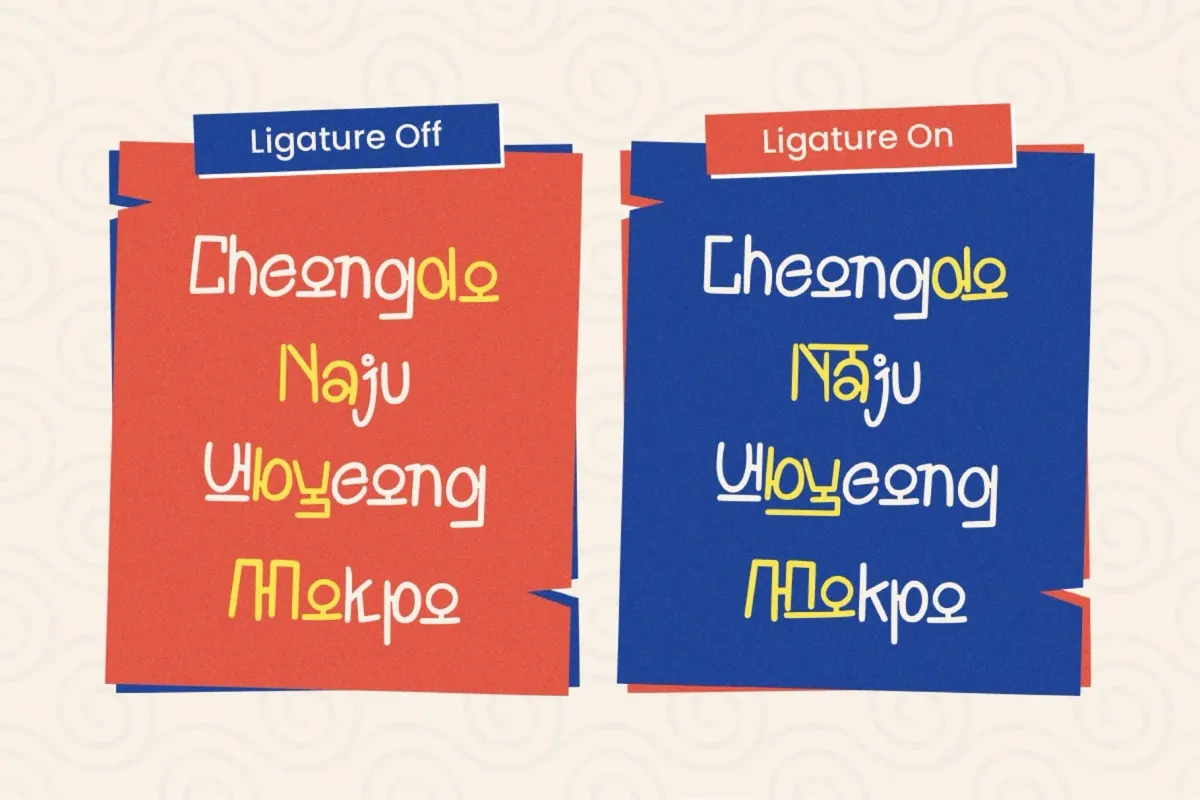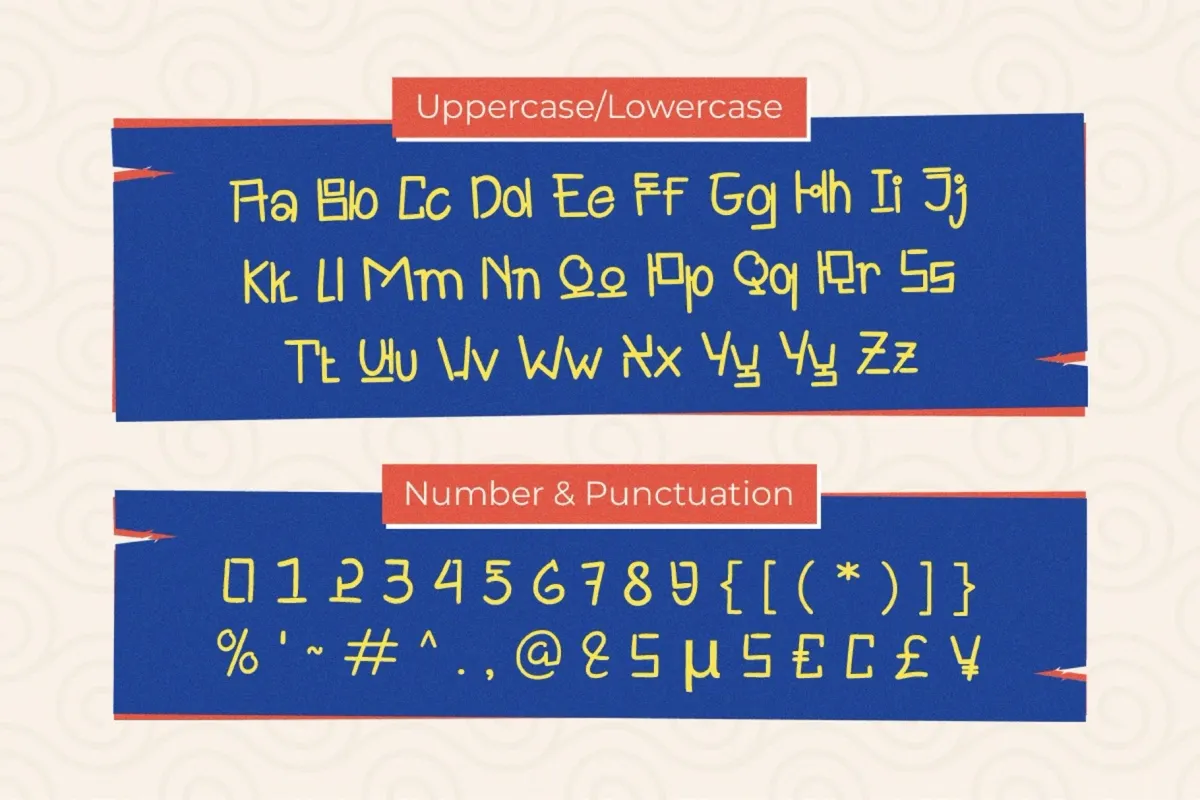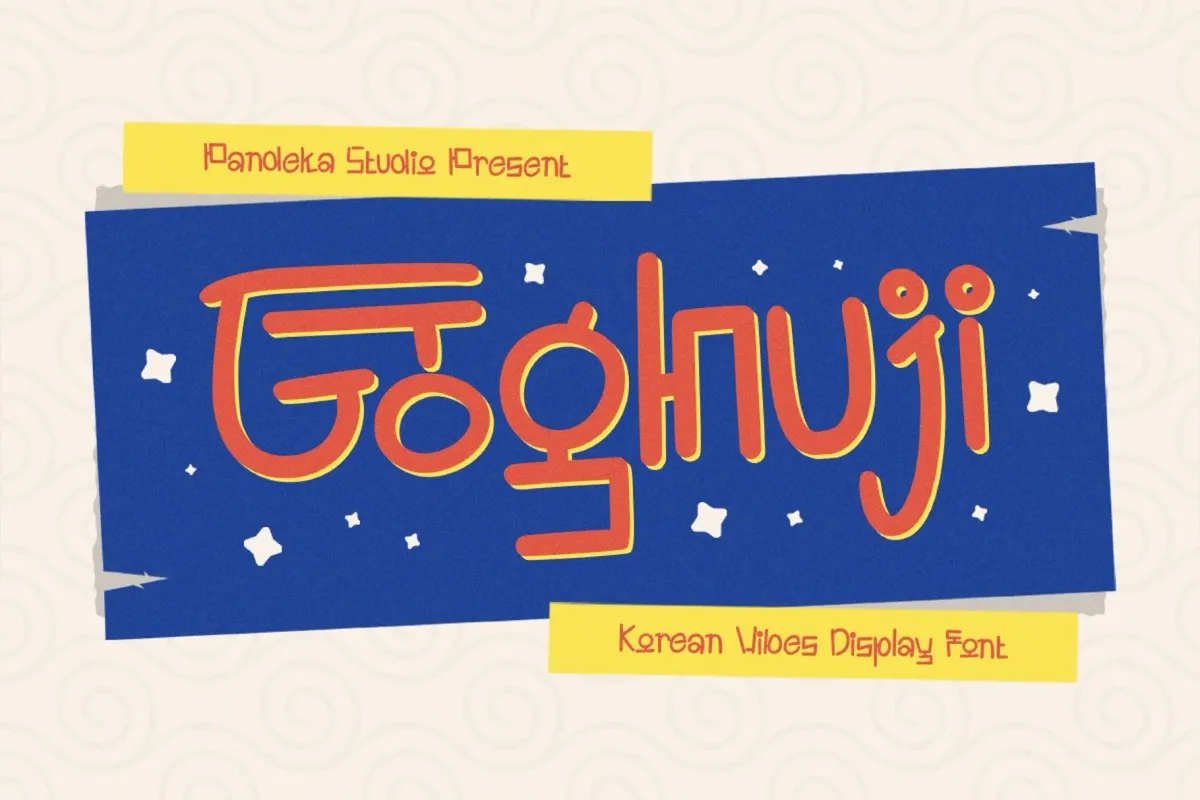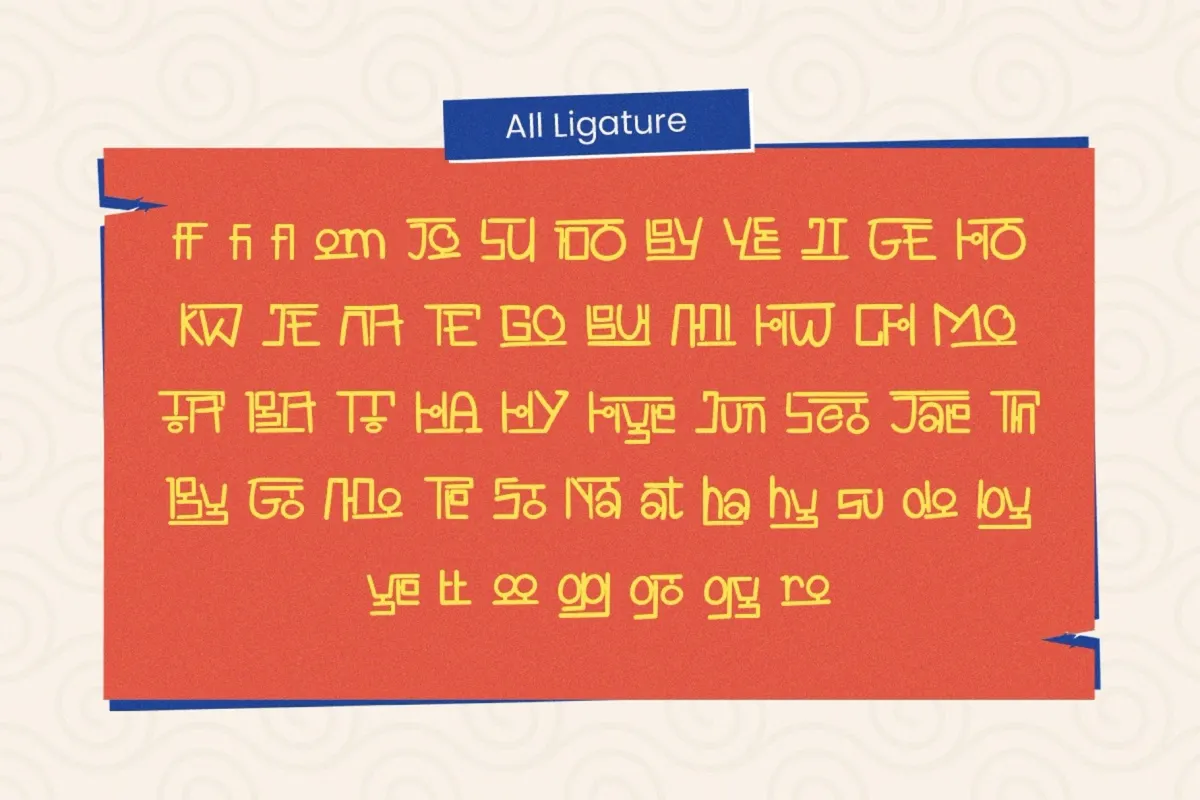
Goghuji - Korean-Style Hand Drawn Display Font
Goghuji is a bold, hand-drawn display typeface built from thick loops, dotted circles, and slightly wobbly strokes that keep every letter feeling sketched rather than drafted. A set of PUA-encoded ligatures reshapes specific words into stylized, Hangul-inspired glyph clusters — a decorative effect layered onto standard Latin letterforms, not an actual Korean script.
It suits projects that want that bold street-signage energy: branding, posters, packaging, and apparel with a K-culture-inspired edge. Toggle the ligature feature on or off depending on whether a word should render as standard Latin type or shift into its stylized cluster form.
• 1 style: Regular;
• Uppercase & Lowercase, numerals, punctuation & symbols;
• PUA-encoded ligatures and stylistic alternates that reshape select words into decorative, Hangul-inspired clusters;